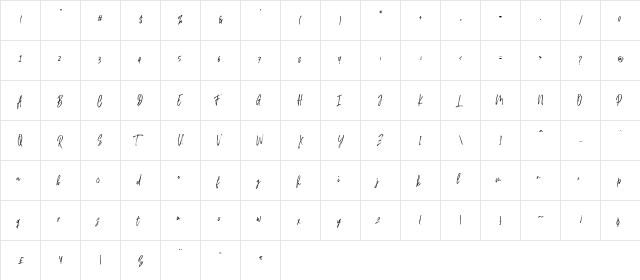
Chester Brush Regular
Design Context for Chester Brush Typeface
Chester Brush brings a calligraphic fluidity to the page — its connecting strokes and expressive curves give it an unmistakably human quality.
Font Pairing: Combine Chester Brush with a simple geometric sans for maximum contrast — the tension between flowing curves and clean structure is a classic typographic pairing.
Pro Tip: Pair Chester Brush with a clean sans-serif for supporting text. The contrast between fluid script and geometric structure creates an elegant typographic hierarchy.